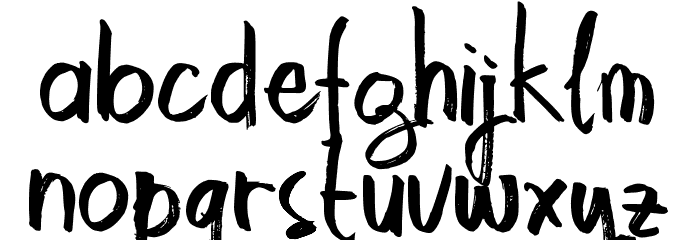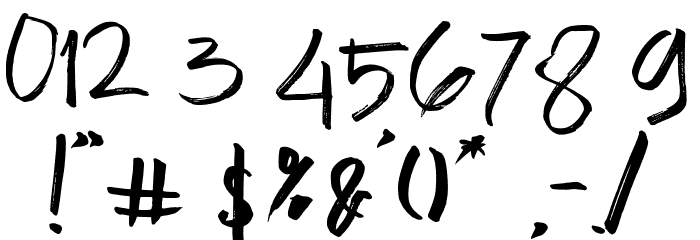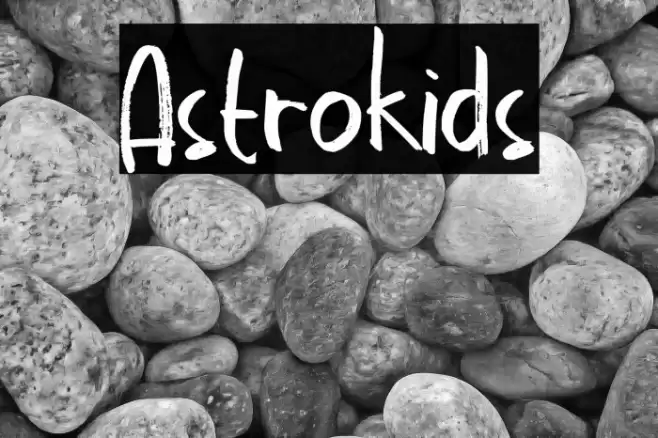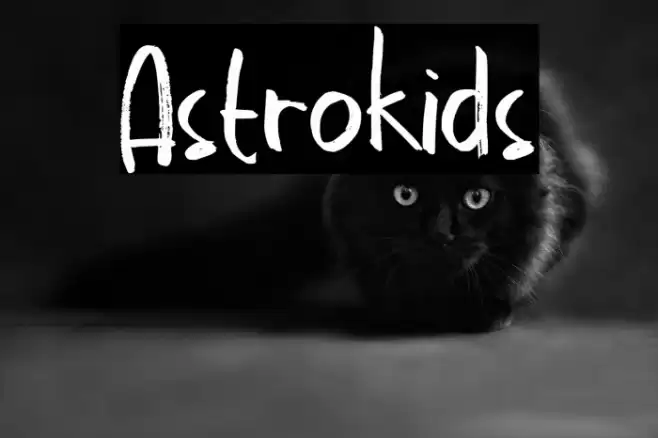
Astrokids Font
This font exudes a playful and energetic vibe, characterized by its hand-drawn appearance. The letters are irregular and dynamic, with a brush-like texture that adds a sense of movement and spontaneity. The uppercase and lowercase letters maintain a consistent style, with some letters featuring exaggerated curves and angles. The numbers and special characters follow the same lively aesthetic, making the font suitable for creative and informal applications. Its unique style captures attention and conveys a sense of fun and creativity.
A playful, hand-drawn font with a brush-like texture and dynamic style.
- Proposed Projects: Ideal for children's book covers, playful branding, creative posters, and informal invitations.